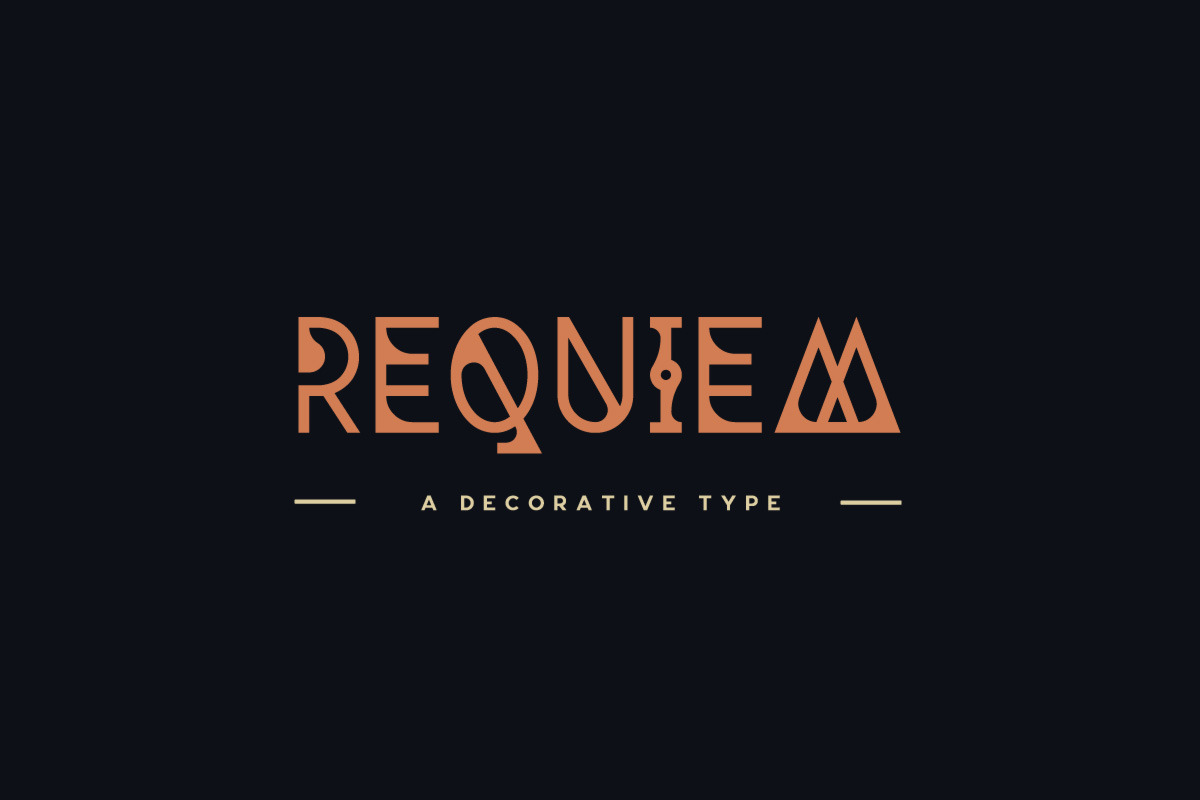
Requiem Typeface
Requiem is a font family with alien letters that still retain legibility. It includes uppercase multilingual letters, numbers, punctuation and comes in two styles. The corroded style has a natural worn-off look to it.